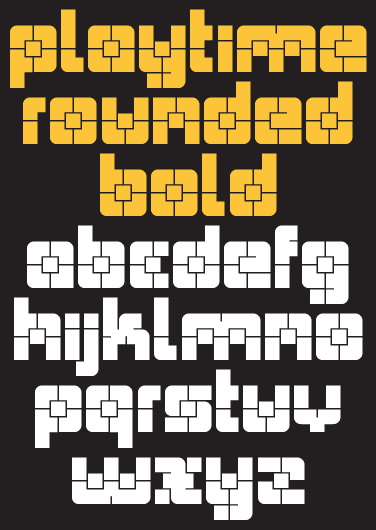
Edited 'm' and 'w'.
wow!
also terrific. Funny how the centre squares look brighter in the sample.
My favorite of the Playtime set. I like way it seems to have a crosshair targeting the center of each glyph.
The 'x' and 'v' solutions are brilliant. I think that the 'w' and 'm' should just go ahead and take twice the width of the grid.
Blocky playful squared letters: an oxymoron as a font... Wonderful!
Thanks all for the feedback. @geneus1: Funny that. When it came down to naming the font, it was between crosshair and playtime. In the end I felt crosshair was to literal and didn't fit the mood I was in at the time of 'structin. @intaglio: it's killing me that I can't immediately place your avatar image. Who?
@Stewf: Thanks for lending your third eye. To be clear, you're proposing the following, correct?
That works. Though I was thinking using the existing side as the middle leg and then just mirroring the body again.
*swoon* I'm in love.
Wonderful. I wish I had those letters in extruded plastic to play with them myself.
10/10! Great font!